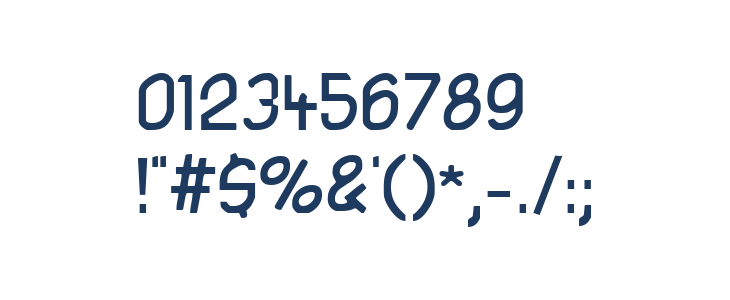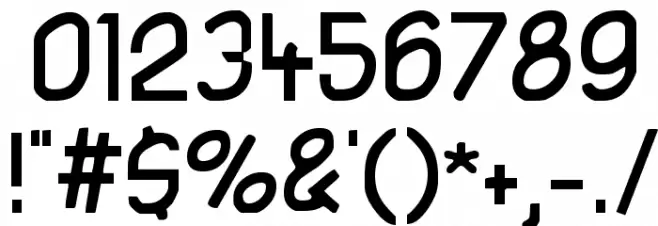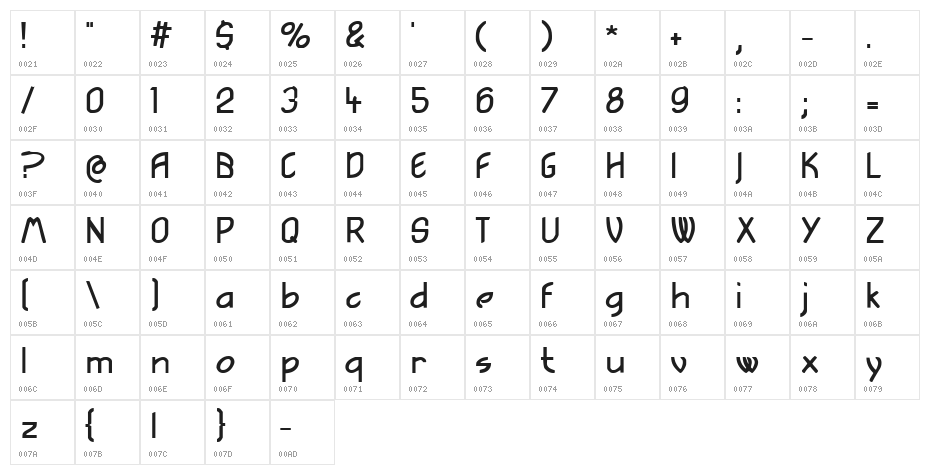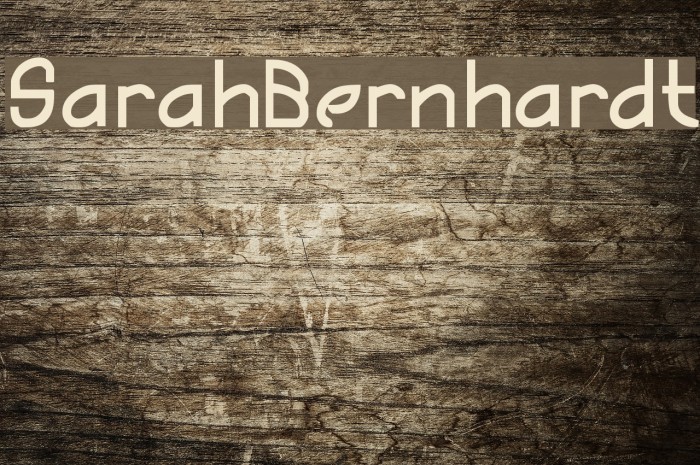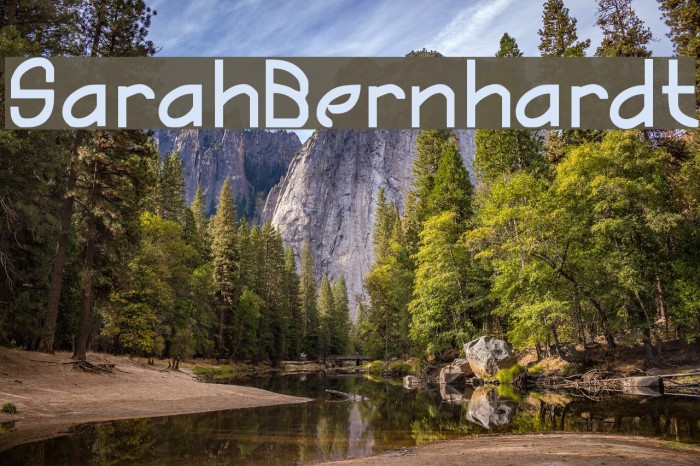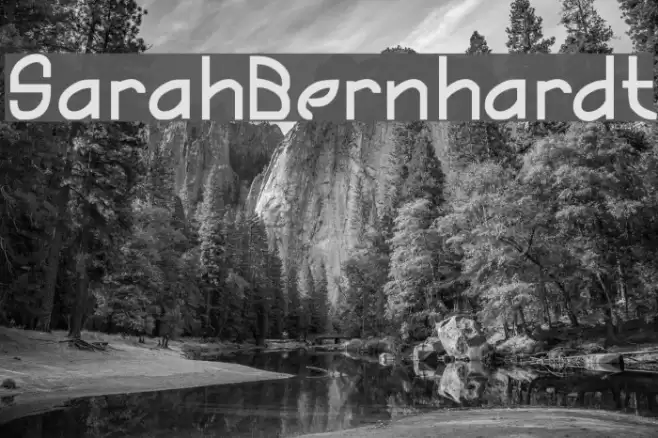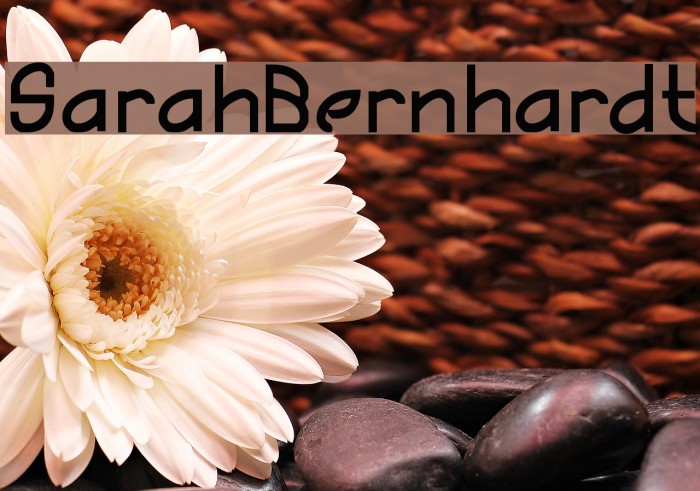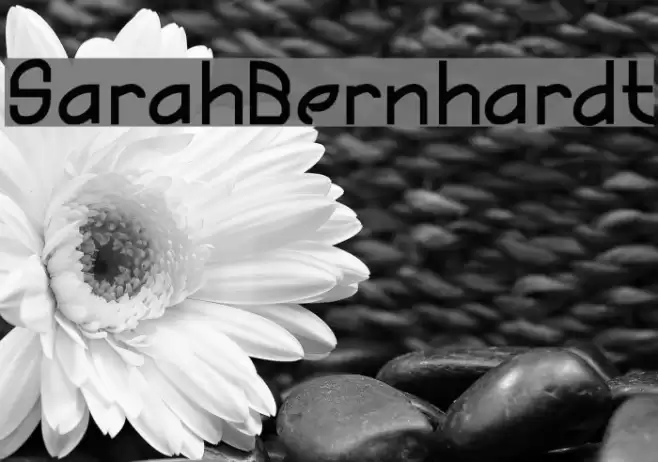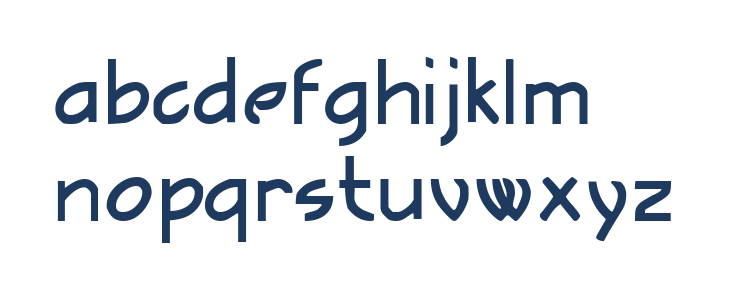
SarahBernhardt Font
SarahBernhardt Description
This font features a unique blend of modern and vintage elements, characterized by its geometric and slightly angular letterforms. The uppercase letters exhibit a consistent height with subtle curves and sharp edges, creating a dynamic visual appeal. The lowercase letters maintain a harmonious balance with a similar geometric style, offering a distinctive yet readable appearance. Numbers are bold and clear, ensuring legibility. Special characters are thoughtfully designed to complement the overall aesthetic, making this font versatile for various applications.
| Proposed Projects | Ideal for branding, posters, and headlines where a modern yet distinctive look is desired. |